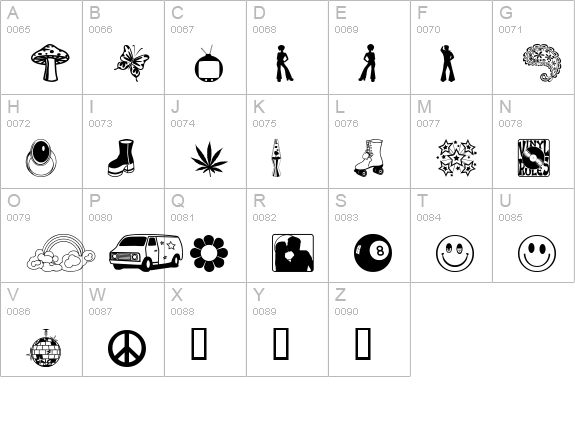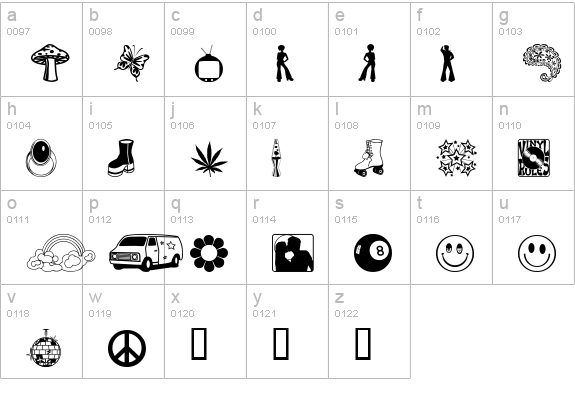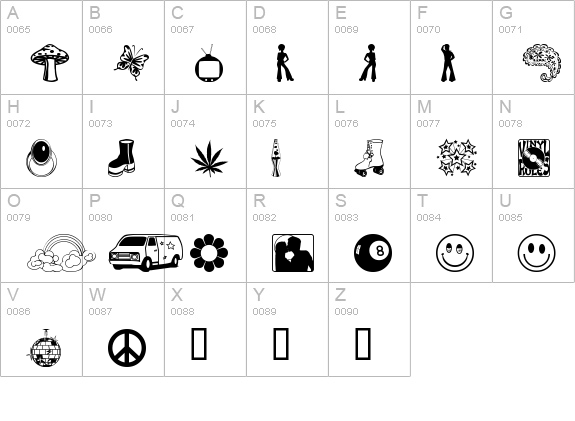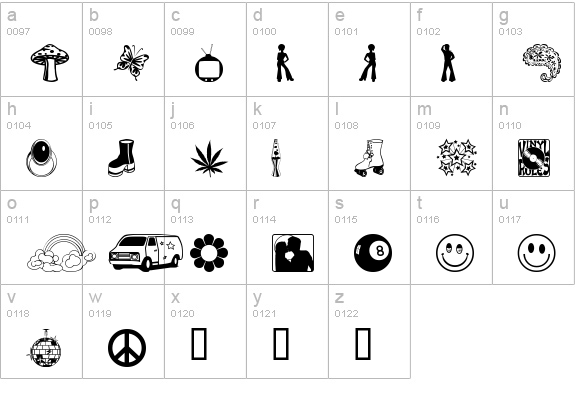
My 70s Ding Font Details
Introducing My 70s Ding font, a groovy and retro-inspired typeface that encapsulates the vibrant and funky spirit of the 1970s era. This font is a playful homage to the iconic design trends of the disco decade, featuring whimsical shapes and whimsical elements that exude a sense of nostalgia and fun. With its bold and expressive letterforms, My 70s Ding font is perfect for adding a touch of retro charm to your designs, whether you're creating posters, invitations, branding materials, or any other project that calls for a dash of vintage flair. Let this font transport you back in time to the era of bell-bottoms, disco balls, and flower power. The best part? My 70s Ding font is available for free download at FontsMarket.com, making it accessible to everyone who wants to add a bit of 70s-inspired pizzazz to their work. So go ahead, unleash your inner disco diva and let My 70s Ding font bring a touch of retro cool to your designs today!